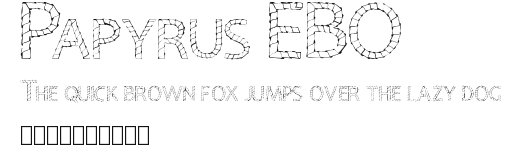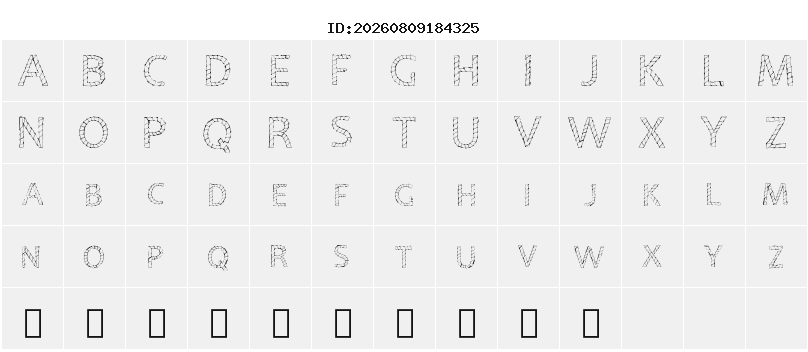
• Font Name: Papyrus EBO
• Full Font Name: Papyrus EBO Regular
About Papyrus EBO.ttf
Papyrus EBO.ttf is a modern, elegant sans-serif font designed for ultimate readability and visual harmony. Perfect for branding, headlines, web design, and print materials.